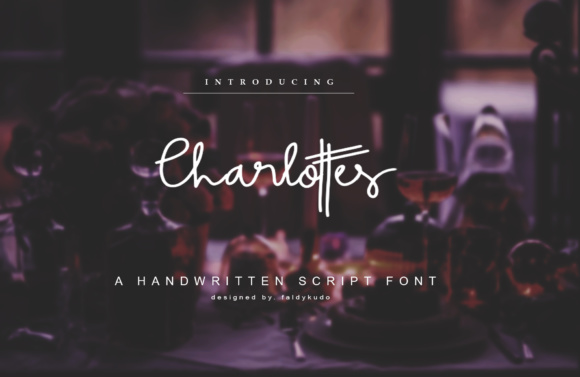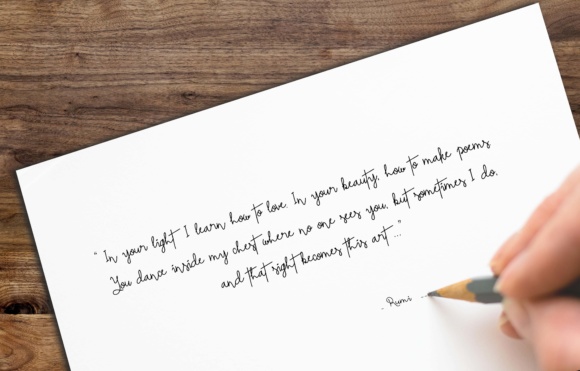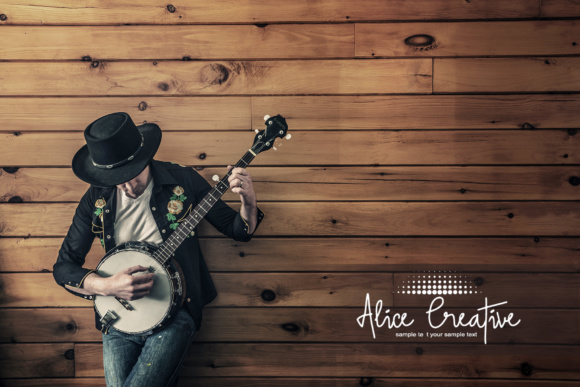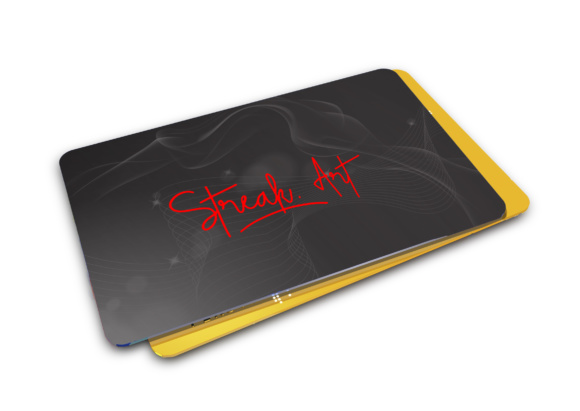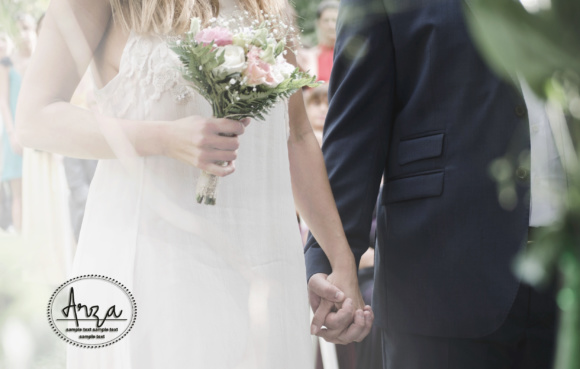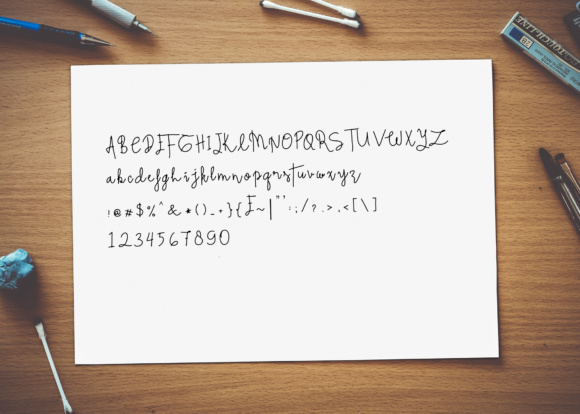
Charlottes Font
About Charlottes Font
The Charlottes is a handwritten script font which was made for many different applications & styles to personalize your products. It has extra large capitals for a unique signature style that is perfect for wedding invitations, logos, apparel, decorative quotes, prints, scrap booking and much more!